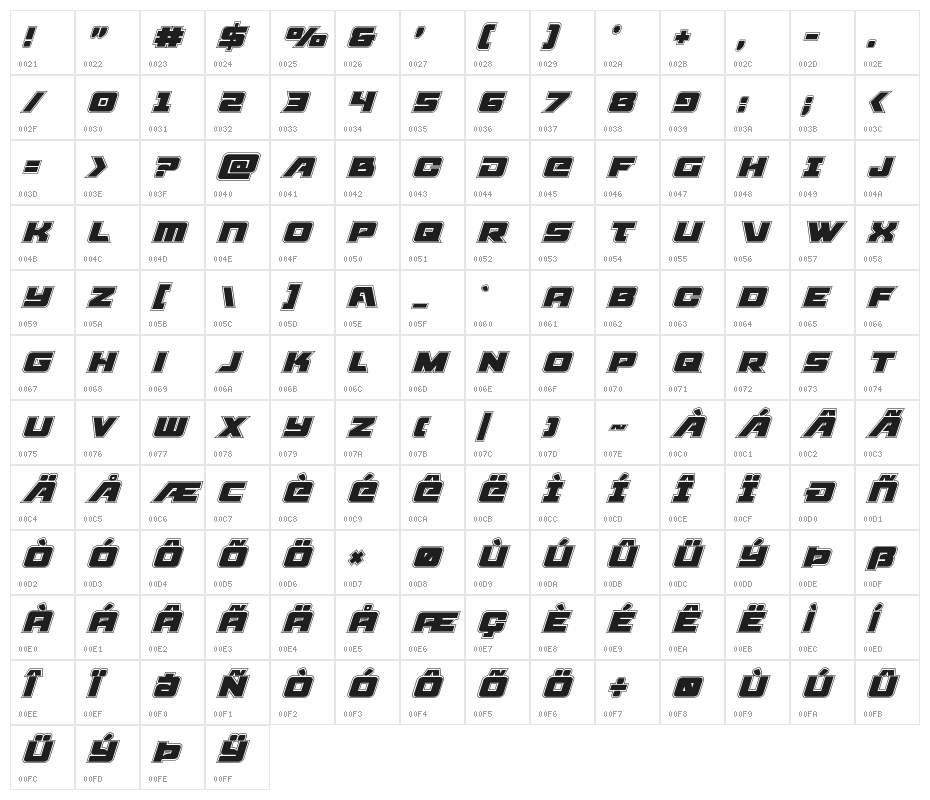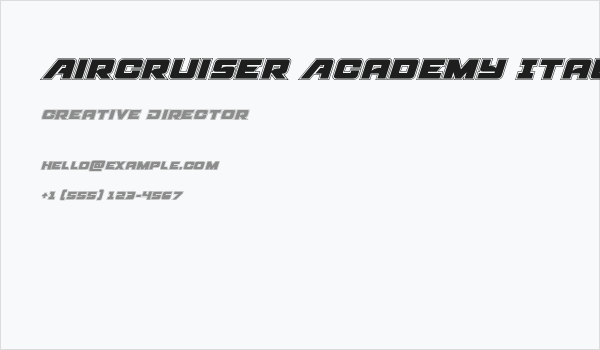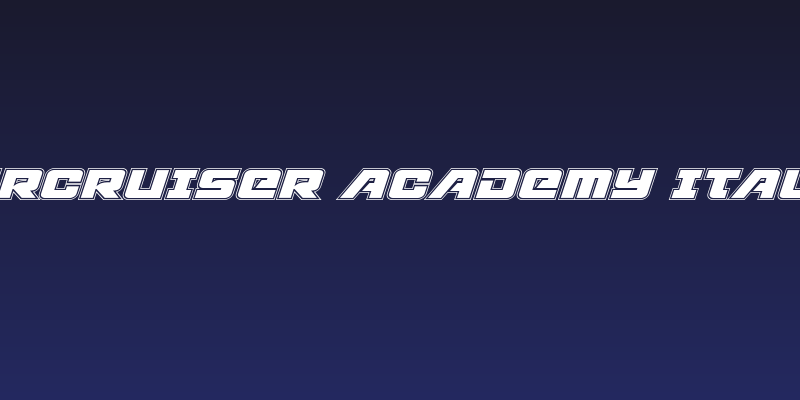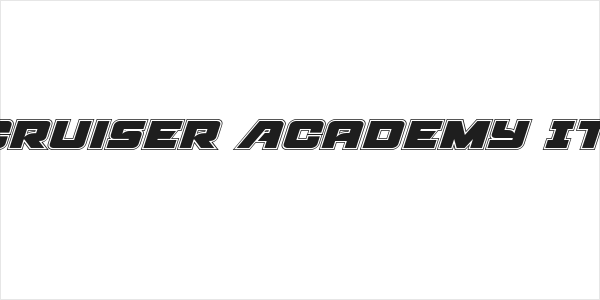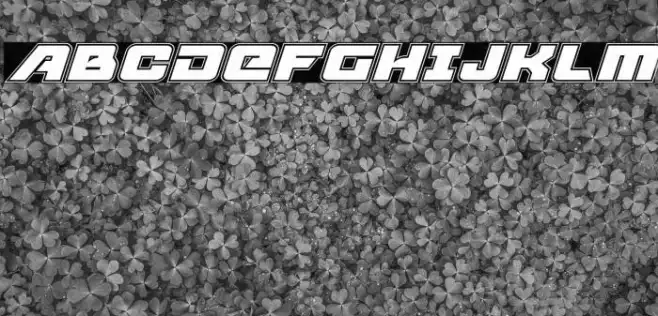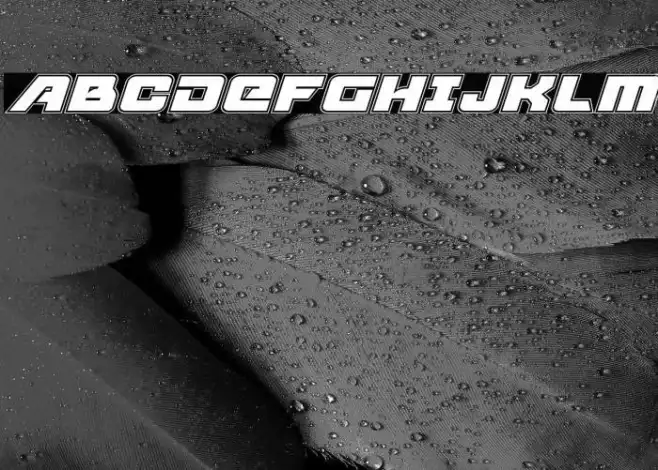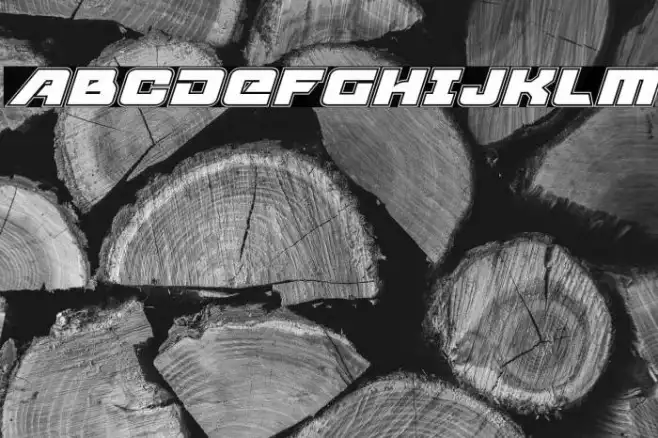
Aircruiser Academy Italic Font
Aircruiser Academy Italic Description
This font features a bold, italicized style with a modern and dynamic appearance. The characters are designed with a strong, angular structure, giving them a sense of movement and energy. Each letter is outlined with a contrasting stroke, enhancing its visibility and impact. The uppercase and lowercase letters maintain a consistent design, while the numerals and special characters complement the overall aesthetic. The font's geometric shapes and sharp edges make it suitable for projects that require a futuristic or sporty feel.
| Proposed Projects | Ideal for sports branding, futuristic designs, automotive logos, and dynamic posters. |